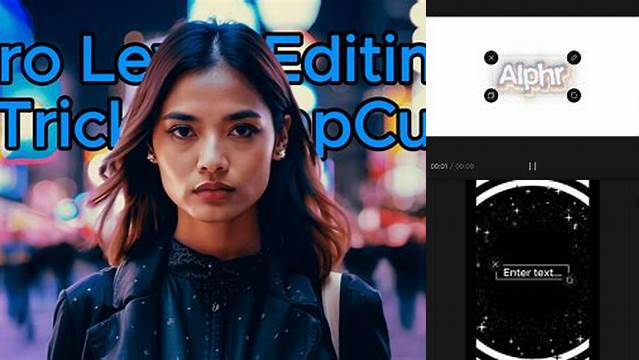
Cool Free Fonts For CapCut: Boost Your Edits
Hey guys! Want to make your videos pop? One of the easiest ways to do that is by using awesome fonts. And guess what? CapCut has a ton of them, totally free! In this article, we're diving deep into the world of CapCut fonts, showing you where to find them, how to use them, and even suggesting some cool ones to get you started. Let's get those creative juices flowing and make your videos stand out from the crowd!
Why Fonts Matter in Video Editing
Let's talk about why fonts are super important in video editing. Think of it this way: your video's visuals grab attention, but your text tells the story. The font you choose is like the voice of your text; it sets the tone, conveys emotion, and makes your message clear. A boring, default font can make your video feel bland, while a well-chosen font can add personality and professionalism. For example, imagine a fun, upbeat vlog using a serious, formal font – it just wouldn't match, right? A good font helps reinforce your video's theme and makes it more engaging for your viewers. So, choosing the right font isn't just a small detail; it's a key part of your video's overall impact. When you're working on a project, consider what feeling you want to evoke. Are you aiming for a modern, sleek vibe? Or something more playful and quirky? There's a font out there for every style, and CapCut's free library makes it easy to experiment and find the perfect match. Don't underestimate the power of typography – it can truly elevate your video from good to great. Remember, consistency is also key. Try to stick to a limited number of fonts (maybe two or three) throughout your video to maintain a cohesive and professional look. Using too many different fonts can make your video feel cluttered and distracting. Think of your fonts as part of your visual branding. Over time, viewers may even begin to associate certain fonts with your style, which can help make your content more recognizable. So, take the time to explore your options, play around with different styles, and discover how the right font can transform your videos!
Finding Free Fonts in CapCut
Okay, so where do you actually find these free fonts in CapCut? It's super simple, guys! When you're in the CapCut editor, just tap on the "Text" option, and then select "Add Text". You'll see a bunch of different font options pop up right away. The best part is that CapCut has a huge library of fonts that you can use for free. You can scroll through the list and preview how each font looks with your text in real-time. This makes it really easy to see what works best for your video. CapCut also organizes fonts into different categories, like "Basic", "Handwriting", "Display", and more. This is super helpful because you can quickly narrow down your search based on the style you're going for. If you're looking for something clean and professional, you might check out the "Basic" category. Or, if you want something more fun and playful, the "Handwriting" or "Display" categories might be a better fit. Another cool feature in CapCut is the ability to download even more fonts. You'll see a little download icon next to some of the fonts in the list. Just tap the icon, and the font will be downloaded and ready to use in your project. This expands your options even further and gives you access to a wider variety of styles. CapCut is constantly updating its font library, so there's always something new to discover. Make it a habit to check back regularly to see what's been added. You might just stumble upon your next favorite font! Remember, exploring different font options is part of the fun of video editing. Don't be afraid to experiment and try out fonts you wouldn't normally use. You might be surprised at what you find. And with CapCut's free library, there's no limit to the creative possibilities. So, go ahead and dive in, explore the fonts, and start adding some personality to your videos!
Top Cool Free Fonts in CapCut
Alright, let's get to the good stuff – some top cool free fonts in CapCut that you should definitely check out! There are so many awesome options, but here are a few that consistently stand out and work well for a variety of video styles. First up, we have Montserrat. This is a classic sans-serif font that's clean, modern, and super versatile. It's perfect for titles, subtitles, and body text. Montserrat is a great choice if you want something that looks professional and easy to read. Next, there's Bebas Neue. This is another popular sans-serif font that's known for its tall, condensed design. It's bold and attention-grabbing, making it ideal for headlines and titles. Bebas Neue gives off a strong, impactful vibe, so it's great for videos that need to make a statement. If you're looking for something with a bit more personality, check out Oswald. This is a sans-serif font with a slightly rounded design, giving it a friendly and approachable feel. Oswald works well for a variety of video styles, from vlogs to tutorials. For a handwriting-inspired font, Permanent Marker is a fantastic choice. It's bold and messy, giving your text a handwritten, authentic look. Permanent Marker is perfect for adding a personal touch to your videos, like if you are making a casual or DIY video. Another great option is Raleway. This is an elegant sans-serif font that's both modern and stylish. Raleway is a good choice for videos that need a touch of sophistication, such as cinematic videos or fashion content. Don't forget about Roboto. This is a widely used font that's known for its clean and legible design. Roboto is a versatile font that works well in almost any context. You can't go wrong with Roboto if you're looking for a reliable and professional-looking font. Remember, the best font for your video will depend on your style and the message you're trying to convey. So, experiment with these fonts and others in CapCut to find the perfect match for your projects. Happy editing!
How to Use Fonts Effectively in CapCut
Now that you know where to find fonts and some cool ones to try, let's talk about how to use fonts effectively in CapCut. It's not just about picking a cool font; it's about using it in a way that enhances your video and communicates your message clearly. First and foremost, legibility is key. No matter how stylish a font is, if your viewers can't read it, it's not doing its job. Make sure your font is large enough to be easily seen, especially on smaller screens like smartphones. Consider the contrast between your text and the background. If your background is busy or colorful, you might need to add a solid background or shadow behind your text to make it stand out. CapCut has some great tools for this, like the "Stroke" and "Shadow" options. The color of your text also plays a big role. Choose colors that complement your video's overall aesthetic and are easy to read against the background. Light text on a dark background or dark text on a light background generally works best. Font size is another important factor. You don't want your text to be too small that viewers have to squint to read it, but you also don't want it to be so large that it dominates the screen. A good rule of thumb is to use larger fonts for titles and headlines and smaller fonts for body text or subtitles. Placement of your text is crucial as well. Avoid covering up important visuals in your video with your text. Position your text in areas of the screen that are less cluttered or where it won't distract from the main action. CapCut allows you to easily move and resize your text boxes, so play around with different positions to see what works best. Animation can also add a lot of visual interest to your text. CapCut has a variety of animation options that you can use to make your text appear and disappear in creative ways. However, don't overdo it with the animations. Too much movement can be distracting and make your text harder to read. When using multiple lines of text, consider the spacing between lines. Too little spacing can make your text look crowded, while too much spacing can make it feel disconnected. CapCut allows you to adjust the line spacing to achieve the perfect balance. By keeping these tips in mind, you can use fonts to create visually appealing and effective text in your videos. Remember, the goal is to enhance your message and make your video more engaging for your audience.
Advanced Font Techniques in CapCut
Ready to take your font game to the next level? Let's dive into some advanced font techniques in CapCut that can really make your videos stand out. One cool trick is using multiple fonts to create visual hierarchy. This means using different fonts for different elements of your text, like using a bold font for your title and a more subtle font for your body text. This helps guide the viewer's eye and makes your text more visually interesting. Just be sure to limit yourself to two or three fonts at most, or your video might start to look cluttered. Another technique is kerning and tracking. Kerning refers to the space between individual letters, while tracking refers to the overall spacing between all the letters in a word or phrase. Adjusting these settings can improve the readability and visual appeal of your text. CapCut allows you to adjust kerning and tracking, so play around with these settings to see what looks best. Using text masks is another way to add some flair to your fonts. A text mask is basically a shape or image that you use to fill your text. For example, you could use a video clip as a text mask, so your text appears to be made up of the video itself. This can create some really cool and unique effects. CapCut makes it easy to create text masks using the masking feature. Gradient colors can also add a lot of visual interest to your text. Instead of using a solid color, you can use a gradient that blends two or more colors together. This can create a subtle but stylish effect. CapCut has a gradient option in the color picker, so you can easily experiment with different color combinations. Adding outlines and shadows to your text is another simple way to make it stand out. Outlines can help define the shape of your letters, while shadows can give your text a sense of depth. CapCut has both outline and shadow options that you can customize to your liking. Animating your text in creative ways is another advanced technique. Instead of just using simple fade-in or slide-in animations, try experimenting with more complex animations, like typewriter effects or kinetic typography. CapCut has a variety of animation presets that you can use as a starting point, or you can create your own custom animations using the keyframe feature. By mastering these advanced font techniques, you can add a professional and polished look to your videos. Don't be afraid to experiment and try out new things. The more you practice, the better you'll become at using fonts to enhance your videos.
So, there you have it, guys! A deep dive into the world of free CapCut fonts. We've covered why fonts matter, where to find them, some top picks, how to use them effectively, and even some advanced techniques. The key takeaway is that fonts are a powerful tool for enhancing your videos and communicating your message. By choosing the right fonts and using them creatively, you can take your videos from good to great. CapCut's free font library is a treasure trove of options, so don't be afraid to explore and experiment. Try out different fonts, play around with sizes and colors, and see what works best for your style. Remember, the goal is to make your text legible, visually appealing, and consistent with your video's overall theme. With a little practice, you'll become a font master in no time. So, go ahead and fire up CapCut, start adding some text to your videos, and let your creativity shine! Happy editing, and we can't wait to see what you create!